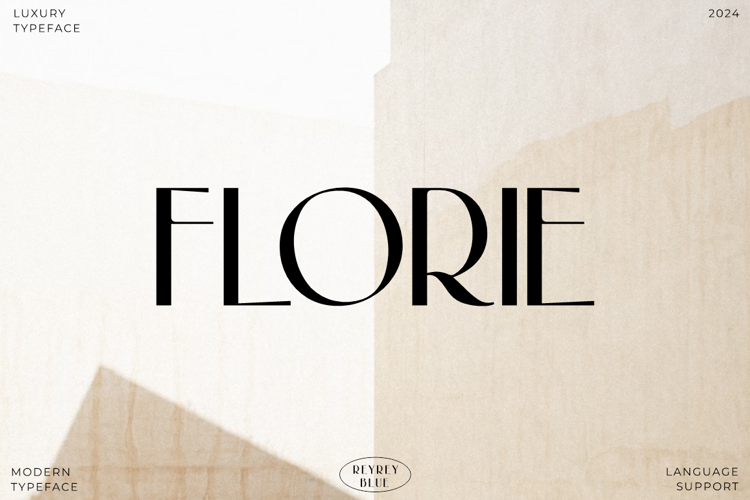
Florie Font
About Florie Font
Introducing Florie. It is a beautiful sanserif font. With its sleek lines and modern elegance, It can be the best solution to make their design look more attractive and contemporary.
This type of font is perfectly made to be applied especially in logos, headlines, signage, and other various formal forms such as invitations, labels, logos, magazines, books, greeting/wedding cards, packaging, fashion, makeup, stationery, novels, labels, or any advertising purpose. This product was created to help you make your digital images even more beautiful and unique.